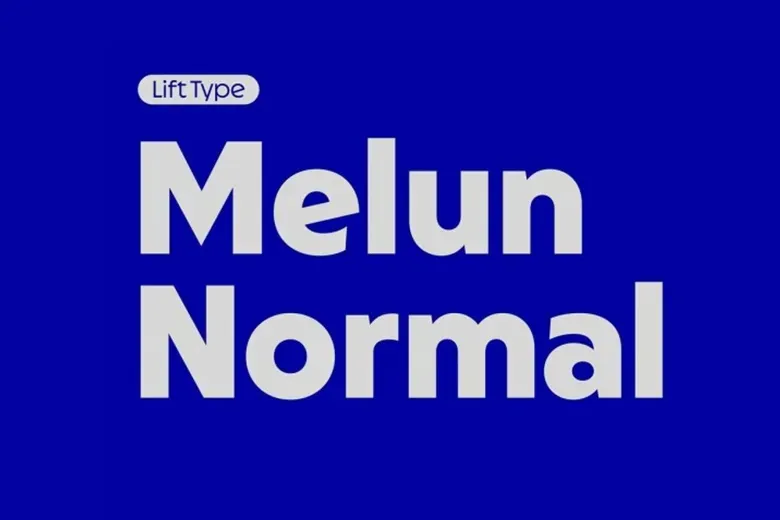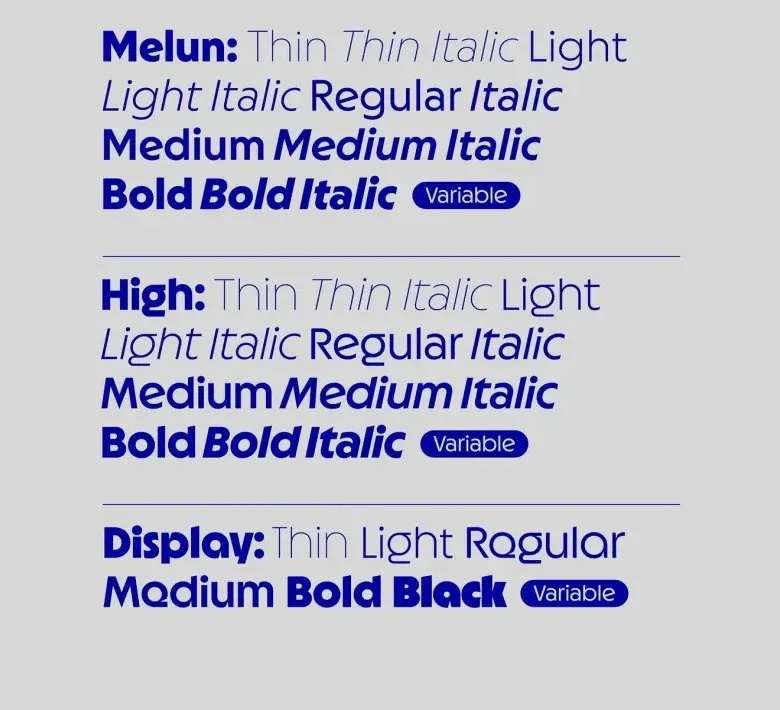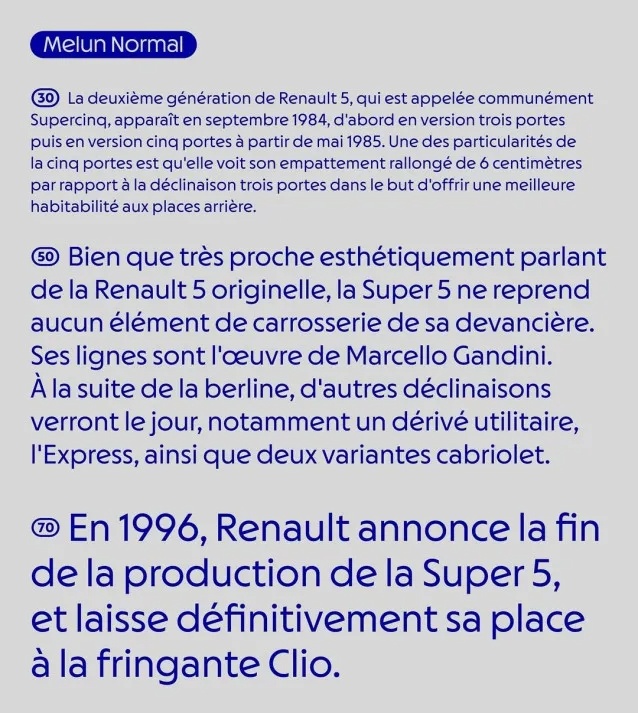
Melun Font Family
Designed to meet the demands of modern design, the Melun Font Family is a versatile sans-serif typeface available in multiple styles. The standard Melun version comes in five weights with matching italics, offering a clean and adaptable look. Melun High features a higher x-height, making it ideal for semi-display use, and is also available in five weights plus italics. For more expressive typography, Melun Display introduces radical shapes across six distinct weights.
Melun Sans Serif Font Family